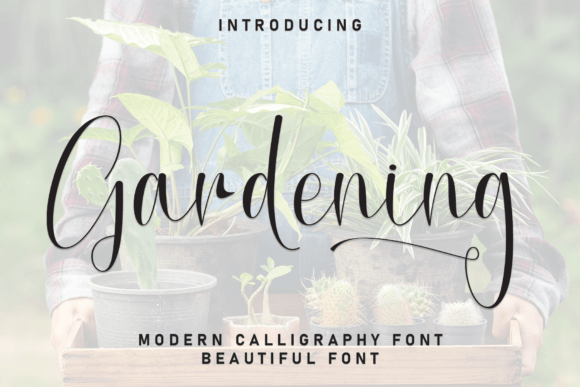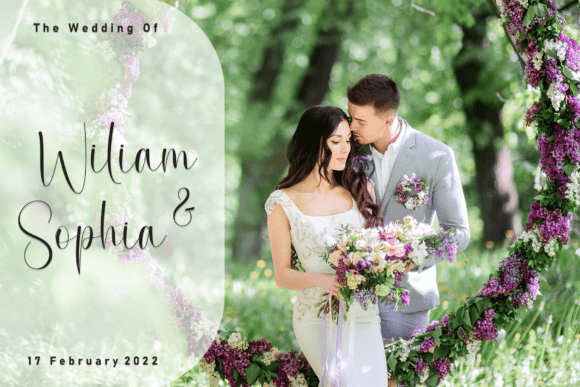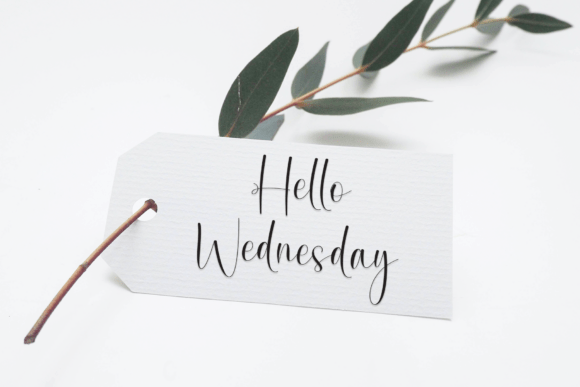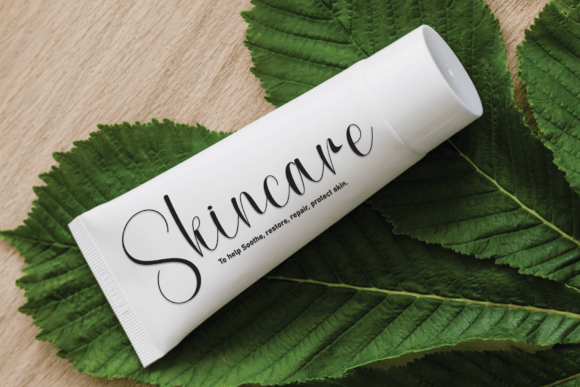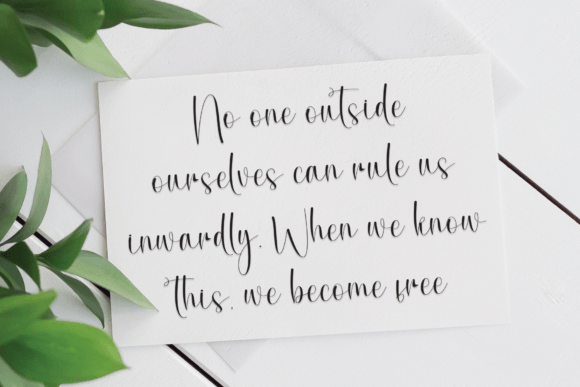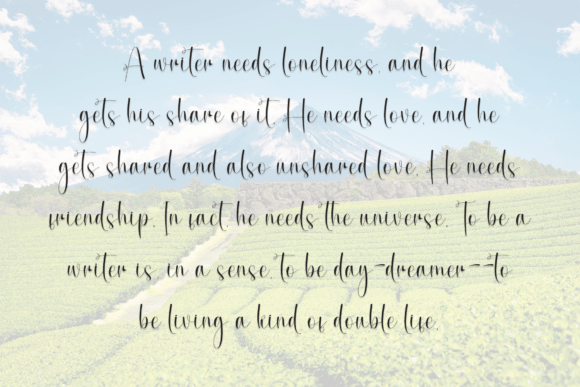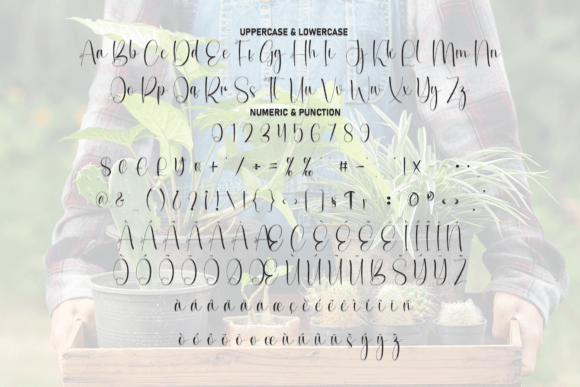
Gardening Font: A Hidden Gem for Designers
Imagine you’re sipping your morning coffee, surrounded by lush greenery, and the first thing that comes to mind is creating a whimsical wedding invitation that sets the tone for a magical day. This is exactly the kind of moment that sparks creativity, and with the right tools, the possibilities become endless. Enter the Gardening Font, a handcrafted display font that effortlessly brings a touch of wonder to your designs.
Perfect for adding a personal touch to your projects, the Gardening Font is an ideal companion for designers seeking to create memorable experiences. Its unique charm and zest make it an excellent choice for crafting delightful greeting cards, wedding invitations, or any other creative endeavor that requires a dash of magic. With its inviting glow, this font promises to elevate your designs and captivate your audience.
Gardening Font Key Features
- Character Set: The font includes a wide range of characters, including uppercase and lowercase letters, numbers, punctuation marks, and special symbols, with over 600 glyphs.
- Size and Resolution: Gardening Font is designed to work well at various sizes and resolutions, including small text sizes (6pt and above) and high-resolution displays (up to 300 DPI).
- Unique Characteristics: Gardening Font features a unique, hand-drawn design with a natural, earthy feel, making it perfect for gardening and outdoor-themed projects.
Gardening Font Review
As a designer, I was excited to dive into the Gardening Font and see what it had to offer. Here’s my honest review:
- ✨ Unique botanical illustrations: The font features a range of beautiful, hand-drawn illustrations that evoke a sense of nature and growth.
- ✨ Customizable: The font is highly customizable, allowing you to adjust the color, size, and spacing to suit your design needs.
- ⚠️ Limited language support: The font is currently only available in English, which may limit its use for designers who work with other languages.
- ⚠️ Not ideal for small text: The font’s illustrations and decorative elements can make it difficult to read at small sizes, which may be a limitation for certain design applications.
Overall, I’m impressed with the Gardening Font’s unique illustrations and customization options. While it has some limitations, I think it’s a great choice for designers who want to add a touch of nature to their designs. With a little creativity and experimentation, I think this font has a lot of potential.
Gardening Font is ideal for:
- Gardening blogs and websites
- Gardening social media
Alternatives to Gardening Font for Designers
Great Vibes is a beautiful, elegant script font that is perfect for designs that need a touch of sophistication and whimsy. It’s great for wedding invitations, event promotions, and other creative projects. Compared to Gardening Font, Great Vibes has a more refined and delicate feel, making it ideal for designs that require a high level of polish.
Carolyna Pro is a modern script font that is designed for flexibility and versatility. It’s perfect for designs that need a touch of elegance and sophistication, such as luxury branding, high-end packaging, and fine art prints. Compared to Gardening Font, Carolyna Pro has a more modern and sleek feel, making it ideal for designs that require a high level of sophistication.
Can I customize Gardening Font for my specific design needs?